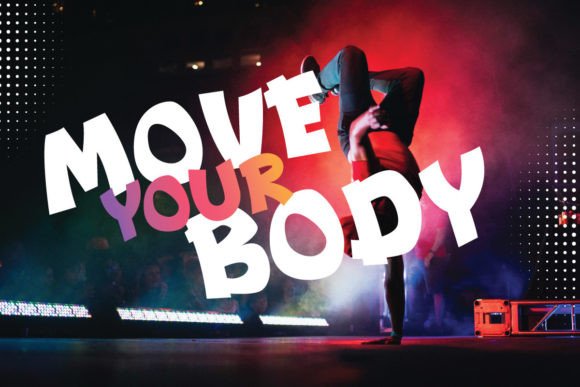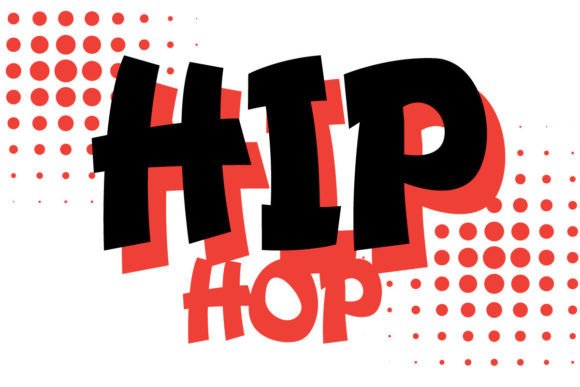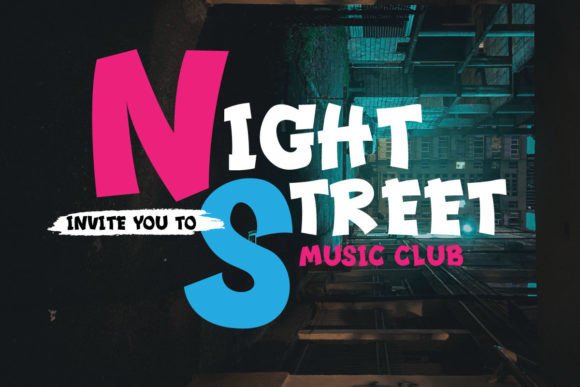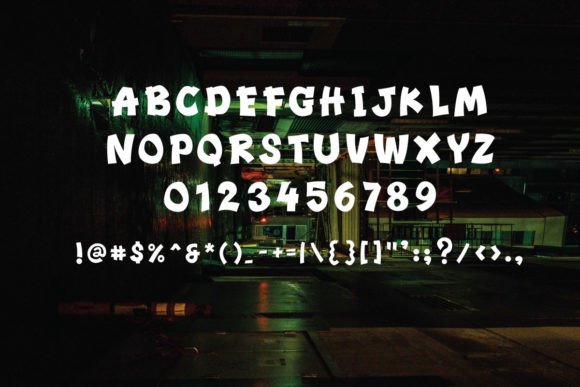
Introduction to Jacky Font
Jacky is a bold and eye-catching display font.
With strong lines and bold curves, this font is perfect for making a statement in any design Whether youโre creating posters, signage, or social media graphics, Jacky is sure to grab attention and leave a lasting impression.
Jacky Font offers exceptional quality and versatility, making it a valuable addition to your design toolkit. Whether you’re creating for personal projects or commercial use, Jacky Font delivers professional results.